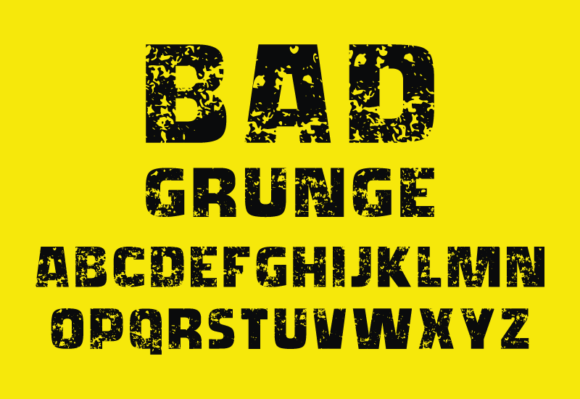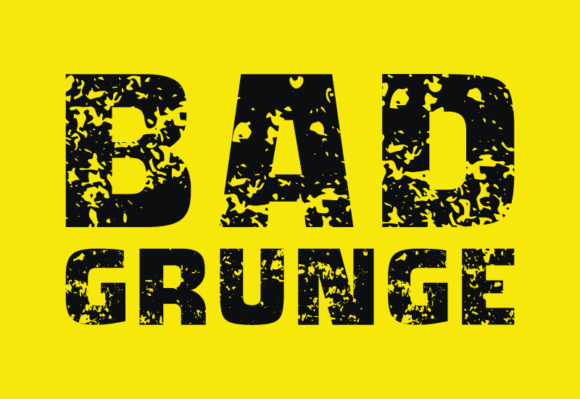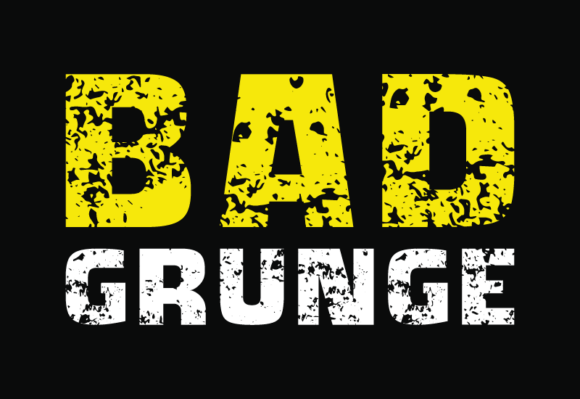
Unleash Your Inner Rebel with the Bad Grunge Font
Remember the thrill of experimenting with your first design software, and the rush of creating something truly unique? That’s what we’re here to talk about – the power of typography to express your individuality. For designers who dare to be different, the Bad Grunge Font is a game-changer.
This distinctive display font wears its heart on its sleeve, boasting bold lines and a distressed texture that screams rugged vigor and rebellion. Whether you’re crafting revolutionary poster designs, daring album art, or bold streetwear imaging, the Bad Grunge Font is the perfect textural counterpoint to your creativity. Its unapologetic boldness and spirit of non-conformity will elevate your design landscape and communicate your message with profound resonance.
Bad Grunge Font Key Features
- Font Family: A distressed, grunge-inspired font family with 6 styles: Regular, Italic, Bold, Bold Italic, Condensed, and Condensed Italic.
- Character Set: Supports a wide range of languages, including Latin, Cyrillic, and Greek, with over 2000 glyphs per style.
- Unique Characteristics: Distressed texture and subtle wear effects, giving it a worn, vintage look, perfect for creating a grunge or punk aesthetic.
Review of Bad Grunge Font
Overall, I think “Bad Grunge Font” has a lot of potential, but it also has some limitations. ✨ One thing that works well is the distressed, vintage aesthetic, which is perfect for music festivals, skateboarding brands, or any other type of project that wants to give off a laid-back, rebellious vibe.
✨ The font is also highly customizable, with a range of different styles and sizes to choose from. This makes it easy to get the look you want, whether you’re using it for a logo, a t-shirt design, or a social media post.
- Some characters are not fully rendered, which can make them look a bit rough around the edges.
- The font may not be suitable for professional or formal projects, as it has a very casual, grungy feel.
- It may not be compatible with all operating systems or devices, which can cause issues with font rendering.
Overall, I would say that “Bad Grunge Font” is a fun, creative font that’s perfect for certain types of projects. However, it’s not suitable for everyone, and it may require some extra work to get it to look its best. If you’re looking for a font that’s a bit edgy and unconventional, then “Bad Grunge Font” might be worth checking out.
The Bad Grunge Font is perfect for creating a distressed, vintage look in your designs. Use it to add a touch of grunge to your typography, and experiment with different text effects to create a unique and eye-catching look. Common use cases include music posters, band logos, and alternative fashion designs.